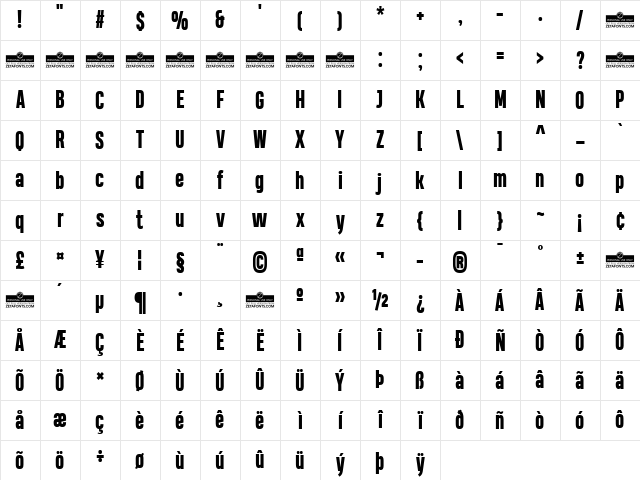
Complete Heading Compressed Pro ExtraBold glyph index. Displaying only characters natively supported by Heading Compressed Pro ExtraBold font.
Heading Compressed Pro is a composed and adaptable typeface that performs quietly and consistently across a wide range of design contexts. Its bold stroke weight gives it real presence on the page.